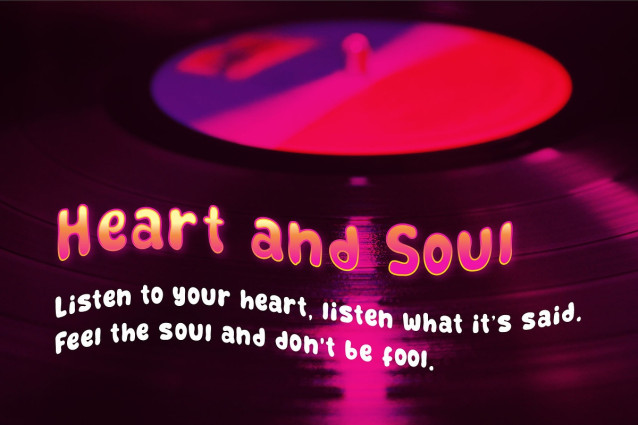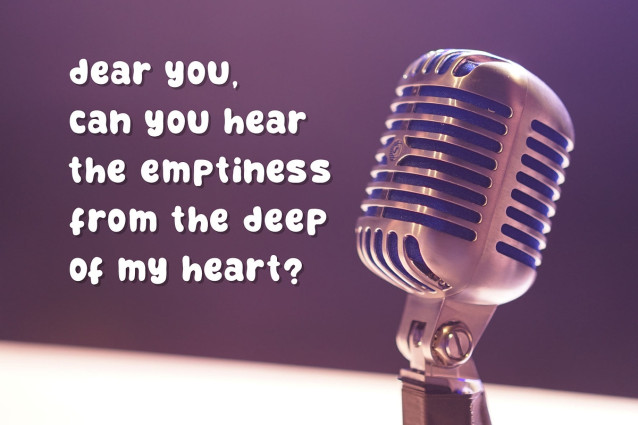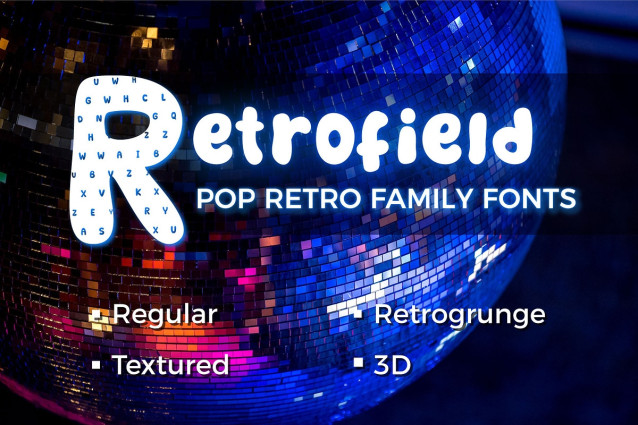
Retrofield Font
Retrofield Font is a bold retro font that captures the nostalgic spirit of vintage design with a modern twist. Featuring playful curves, classic letterforms, and a warm, familiar vibe, Retrofield is perfect for posters, logos, packaging, and branding that aims to evoke charm and personality.